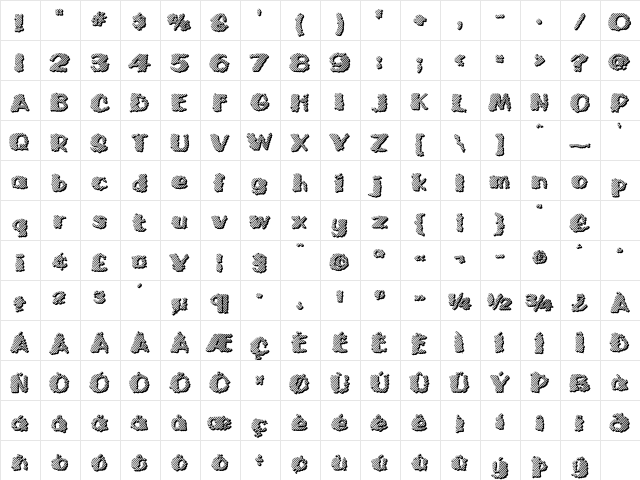
Guppulla 'RoughlySliced' Regular
Design Context for Guppulla 'RoughlySliced' Typeface
Guppulla 'RoughlySliced' trades polish for personality, using distressed and eroded forms to bring grit and attitude to creative work.
Suited to punk-influenced zines, underground music branding, streetwear, and raw, anti-corporate design.
Pro Tip: Pair Guppulla 'RoughlySliced' with intentionally raw or lo-fi design elements. Fighting against it with overly polished surroundings will undermine its personality.